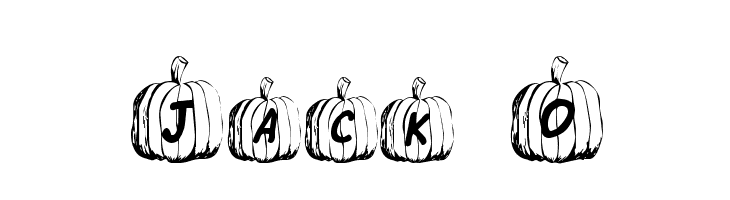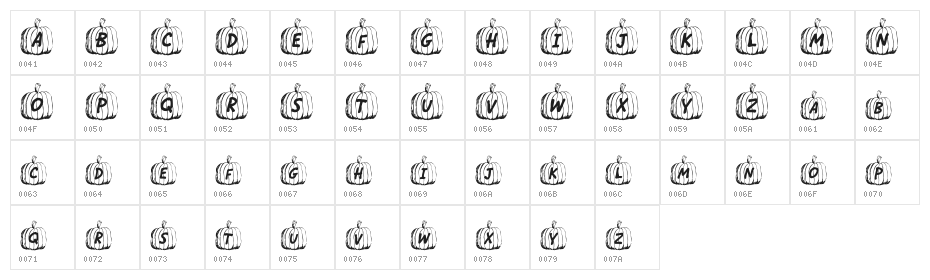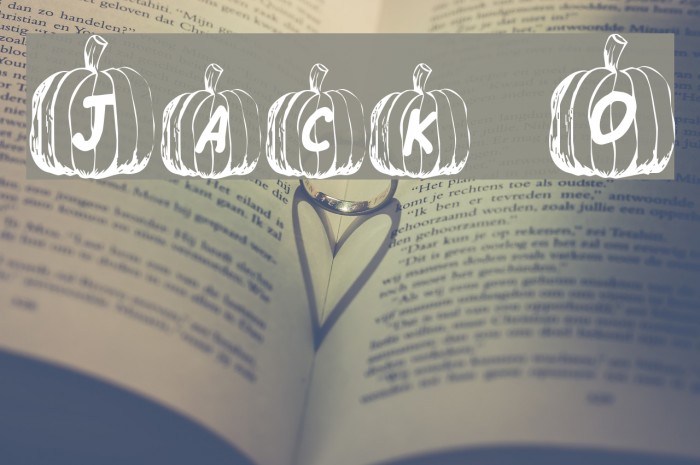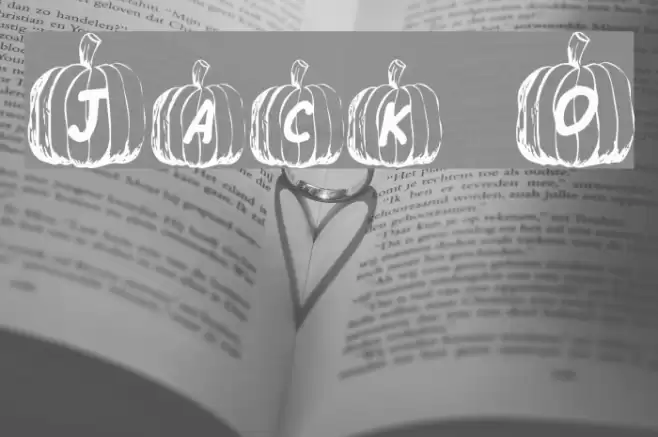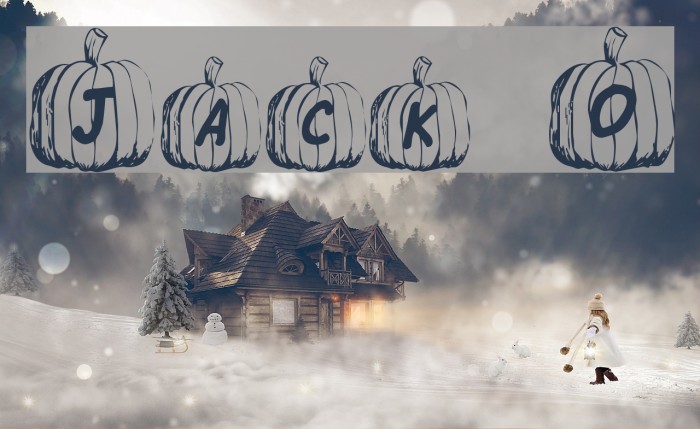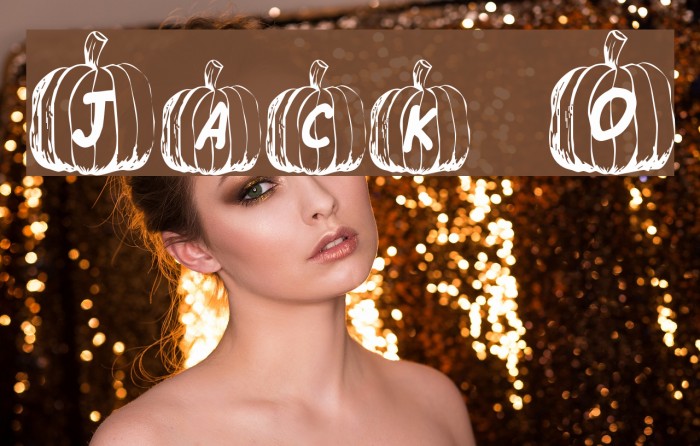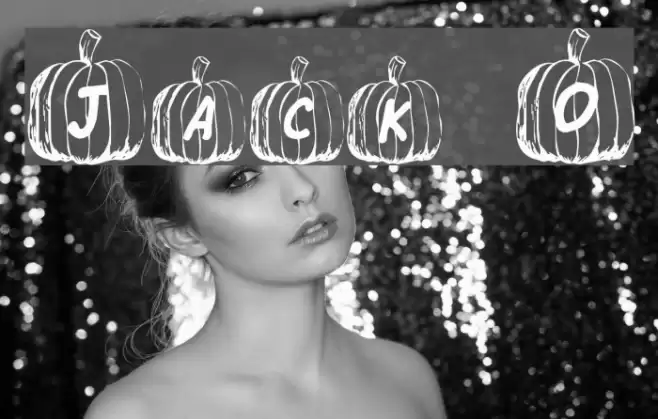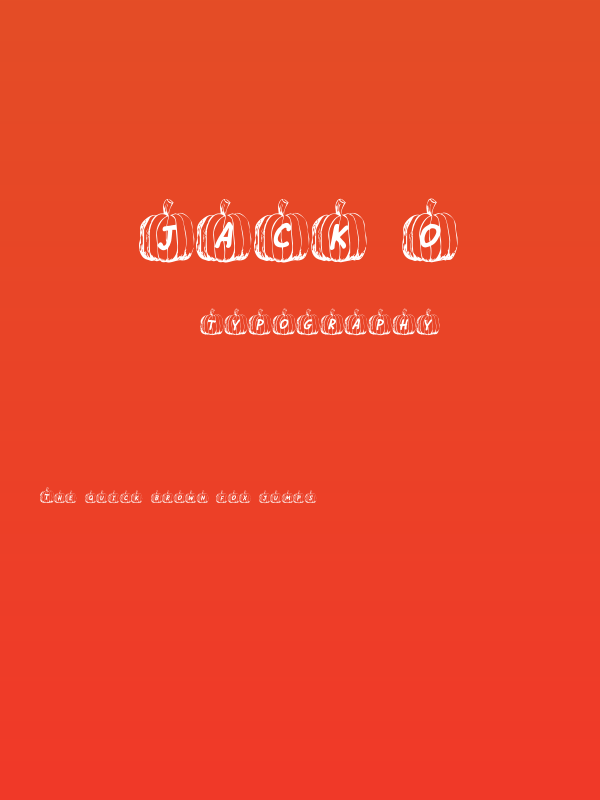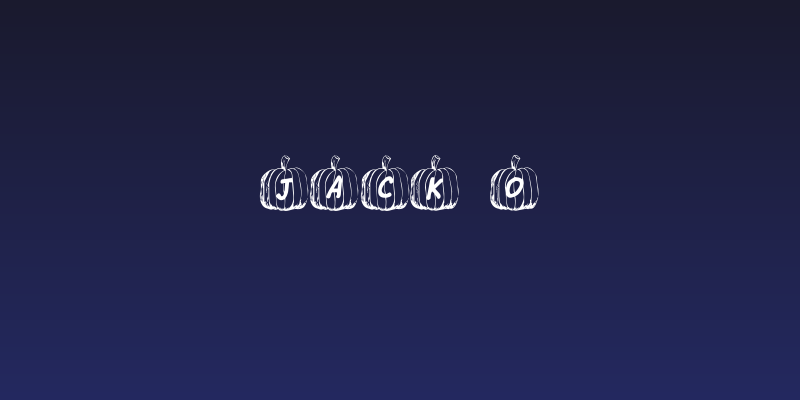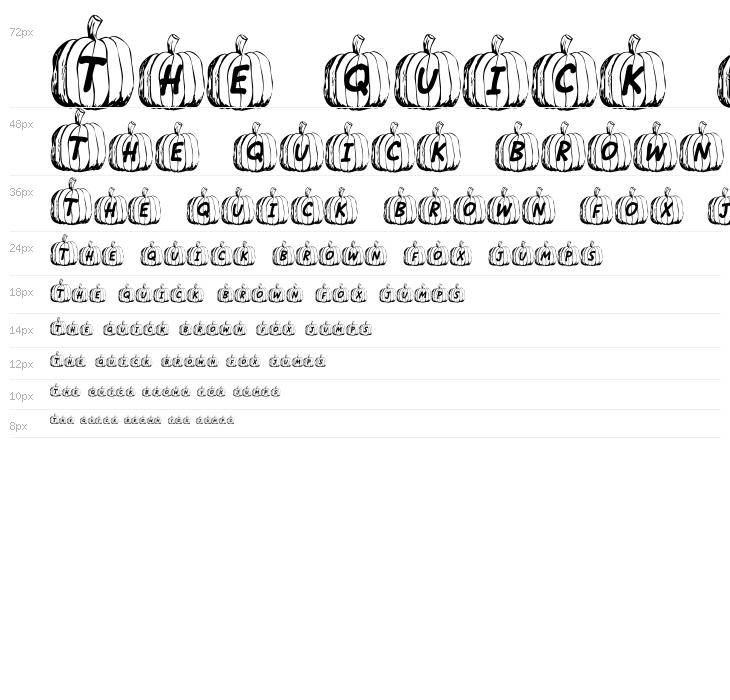
Jack O Font
Jack O Description
This playful and thematic font features letters carved into pumpkin shapes, evoking a festive Halloween spirit. Each character is uniquely designed to resemble a jack-o'-lantern, with bold, hand-drawn lines that give it a whimsical and decorative appearance. The font is highly stylized, with each letter nestled within the contours of a pumpkin, creating a cohesive and charming aesthetic. The design is perfect for seasonal projects, offering a fun and engaging way to capture the essence of autumn and Halloween festivities. Its distinctive style makes it ideal for creative applications where a touch of holiday cheer is desired.
| Use Case | Headlines, Logos, Seasonal designs |
| Proposed Projects | Ideal for Halloween invitations, festive banners, themed posters, and seasonal greeting cards. |